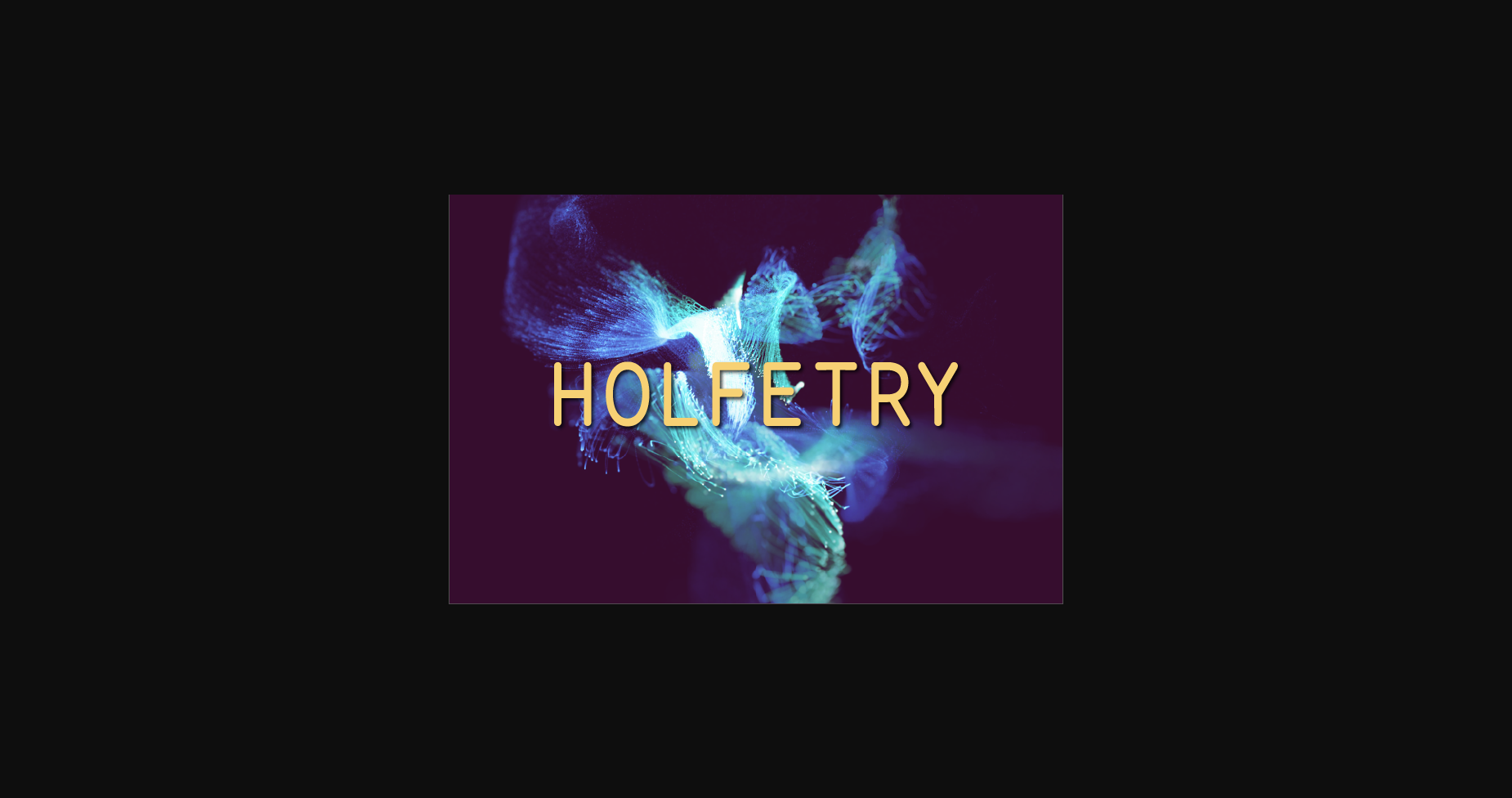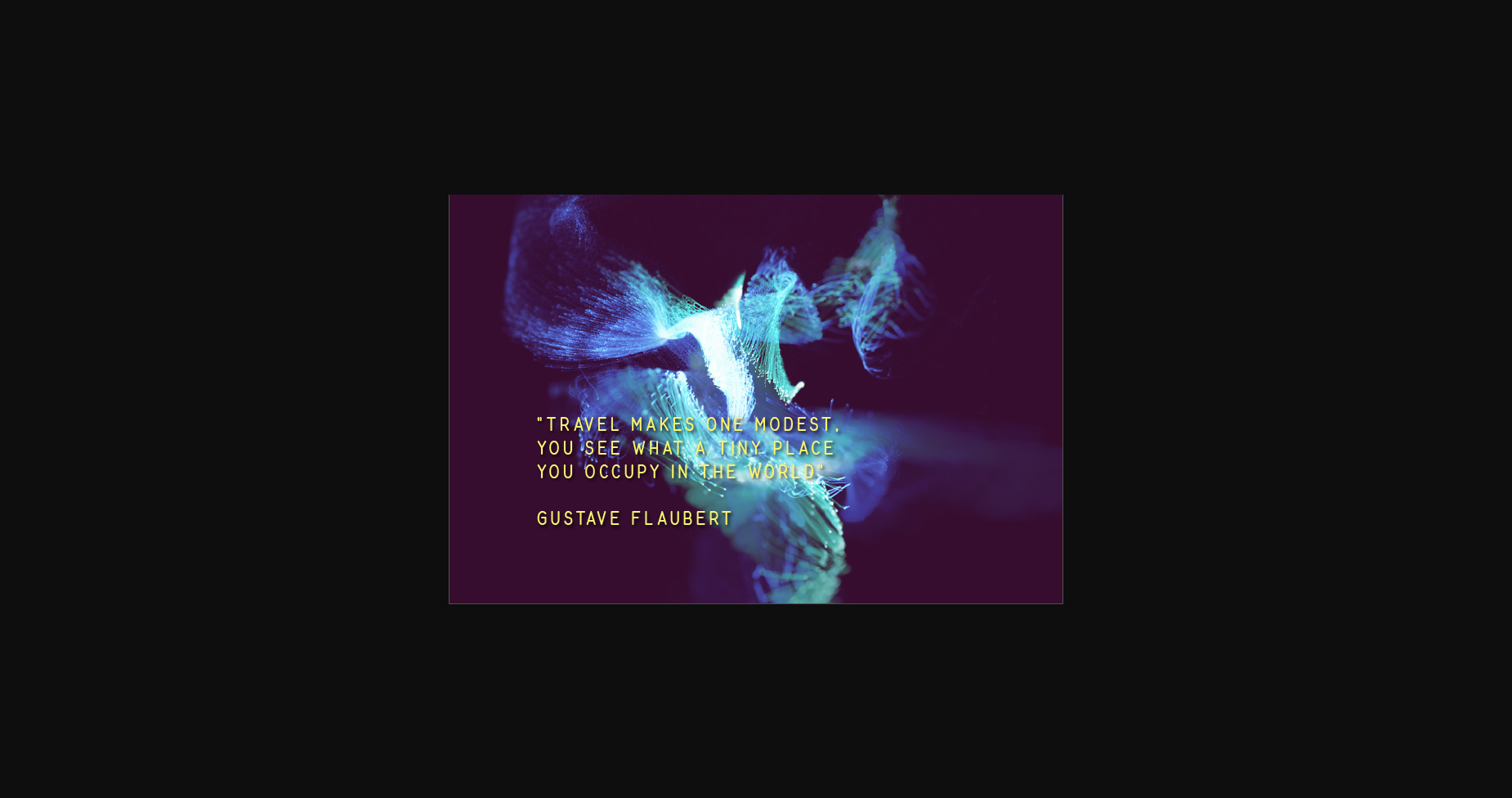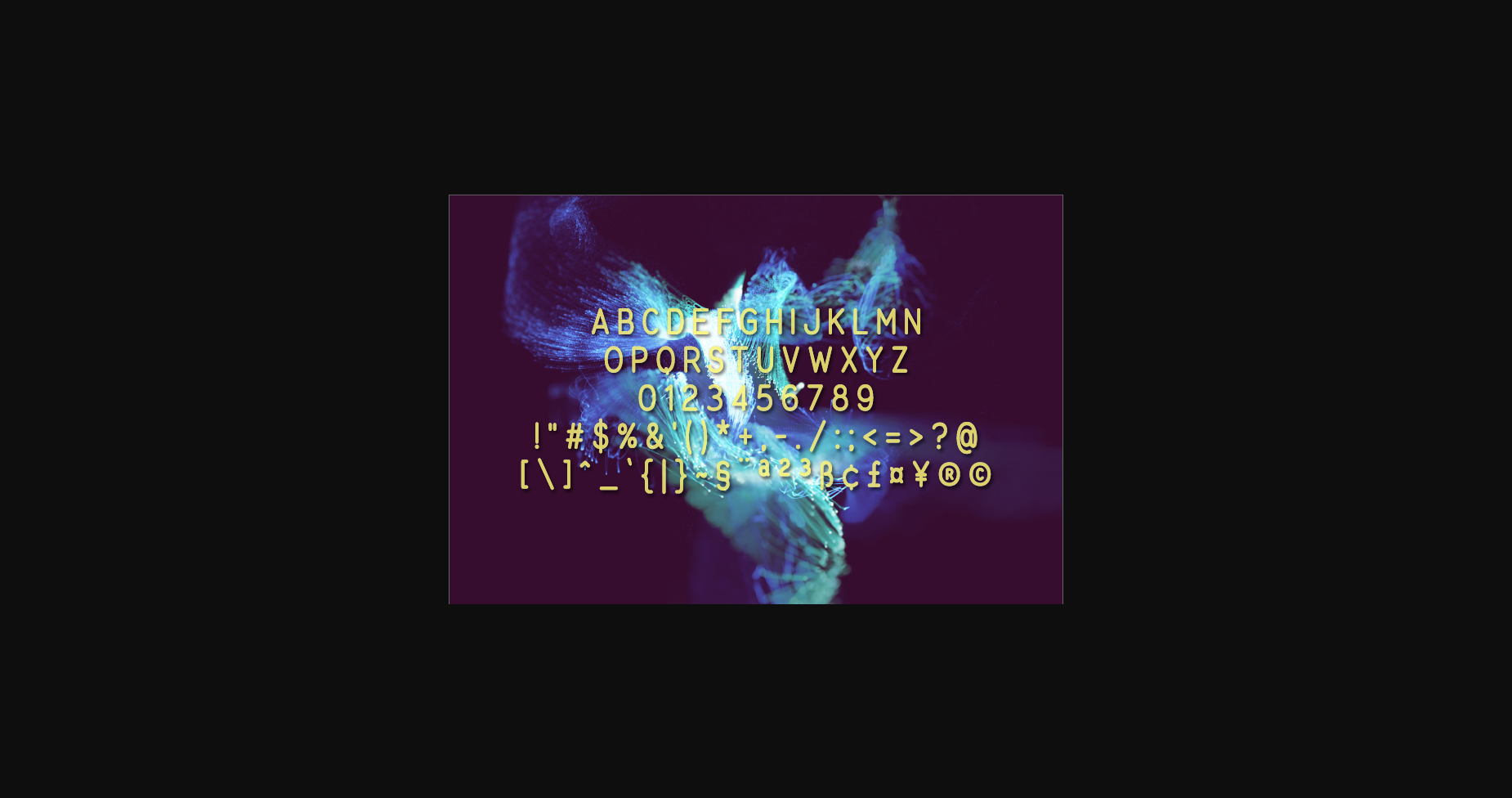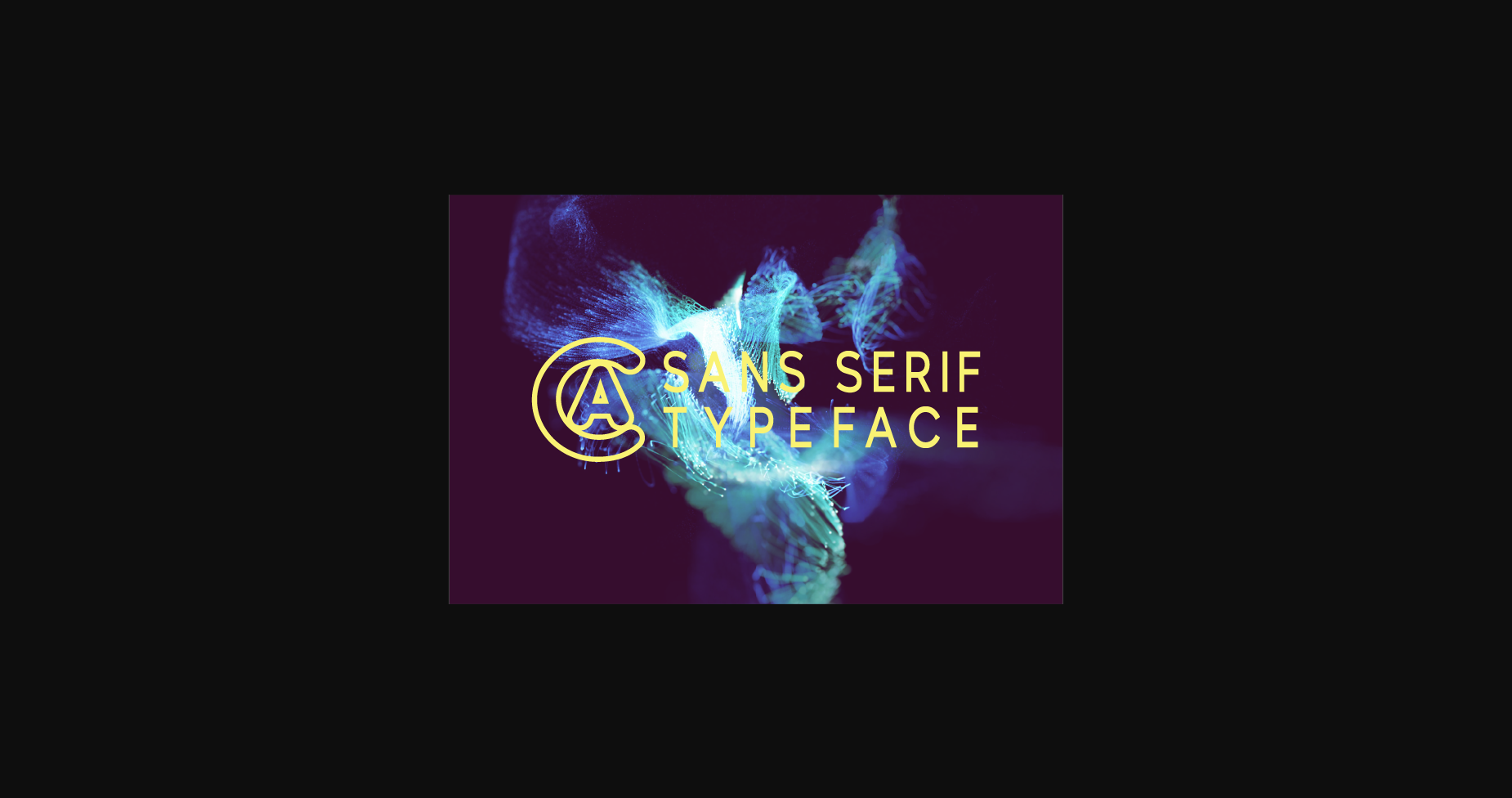
Holfetry is a minimal and neat sans serif font. This font is ideal for writing web designs, business cards, or pretty much anything else that requires a unique touch.